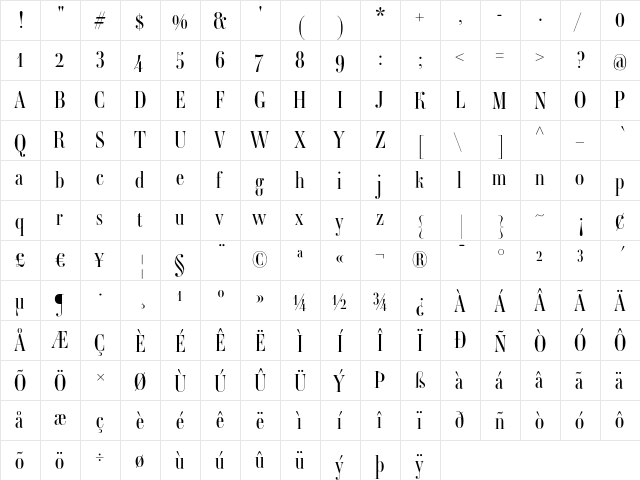
Ambroise Firmin Light
Design Context for Ambroise Firmin Typeface
Ambroise Firmin takes a measured approach to typography — its balanced proportions and neutral character make it a reliable workhorse for both digital and print work. The delicate stroke weight brings airiness and refinement to layouts.